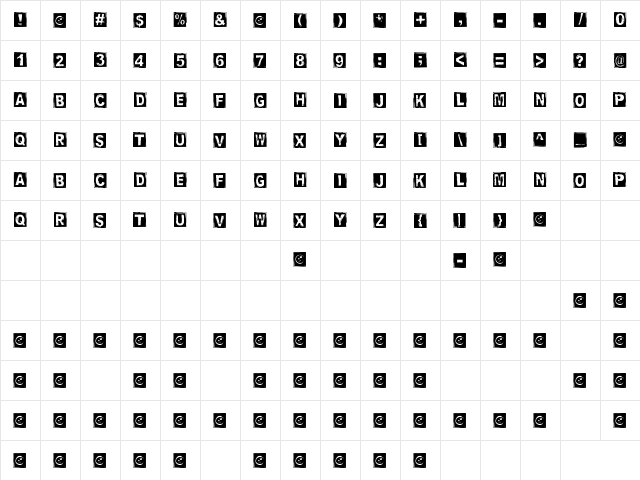
Stamped DSG Regular
Design Context for Stamped DSG Typeface
Stamped DSG has the rough pragmatism of spray-painted stencil signage, adding a raw, street-level authenticity to designs.
A strong choice for packaging that needs edge, warehouse aesthetics, and rough-and-ready visual identities.
Pro Tip: Use Stamped DSG at large sizes on packaging, posters, or apparel where the stencil cutaways read clearly. Avoid small sizes where those gaps become visual noise.